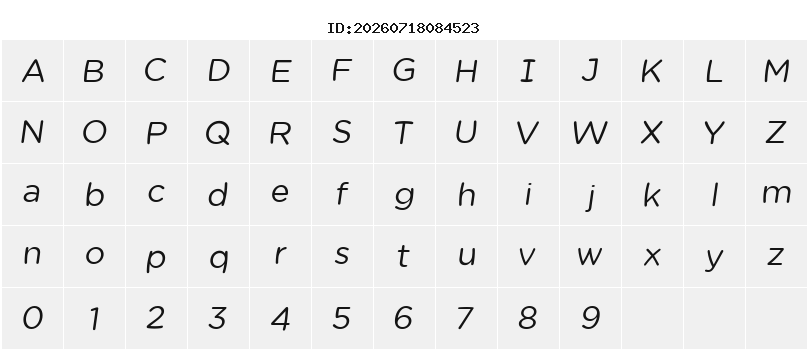
• Font Name: Chams
• Designer: Tom Tor
Chams .ttf is a modern, elegant sans-serif font designed for ultimate readability and visual harmony. Perfect for branding, headlines, web design, and print materials.